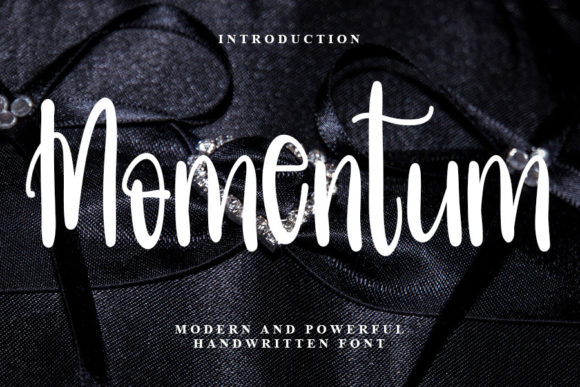
**Introduce Momentum Handwritten Script Font**
Harness the captivating charm of Momentum, a script font that whispers elegance and timeless appeal. Its fluid strokes and graceful curves emulate the artistry of hand-lettered scripts, bestowing your designs with an enchanting touch.
**Perfect for a Touch of Personalization**
Whether you're crafting bespoke wedding invitations, enchanting logos, or heartfelt quotes, Momentum's versatility knows no bounds. Its delicate flourishes add a touch of whimsy, while its distinctive character lends a sense of individuality. Each letter dances across the page with a unique flair, bringing your creations to life.
**Elevate Your Designs**
With Momentum, you unlock a world of design possibilities. Its alluring presence enhances both personal and professional projects, adding a touch of sophistication and enchantment. Let your imagination soar as you incorporate this captivating font into your logos, branding, websites, and social media posts.
**Fonts That Ignite Emotion**
At the heart of Momentum lies a deep understanding of the power of typography. Its carefully crafted curves evoke a sense of nostalgia, romance, and celebration. Your designs will not only be visually stunning but also emotionally resonant, capturing the attention of your audience and leaving a lasting impression.
**Experience the Magic of Momentum**
Treat your designs to the transformative beauty of Momentum. Its graceful strokes and enchanting character are sure to leave an enduring mark on your creations. Embrace the timeless charm of handwritten elegance and elevate your designs to new heights.